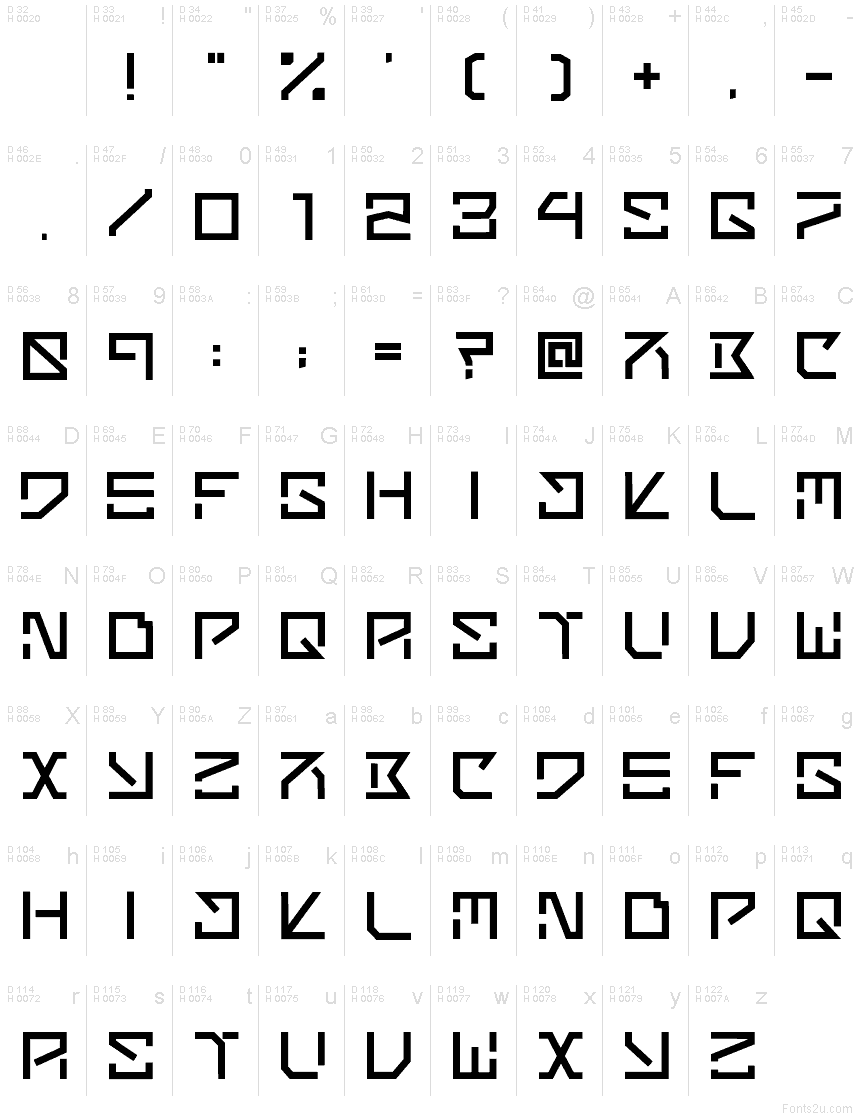
Ayana Regular
Ayana font by Ideal Eksis is a free futuristic display font that charges forward on razor‑cut angles and split strokes. Its geometry feels engineered—clean monoline weight, hard corners, and clever breaks that read like circuitry rather than gaps. The result is a crisp, high-tech rhythm that stays legible while looking unapologetically sci‑fi.
Using Ayana, headlines snap with pace on tech branding, esports logos, gaming UIs, event posters, gadget packaging, and motion title cards. Tight spacing amplifies its kinetic feel, while a touch of letterspacing can open it up for longer captions. This free font pairs naturally with a plain, unobtrusive sans for body copy to keep the spotlight on its angular forms.